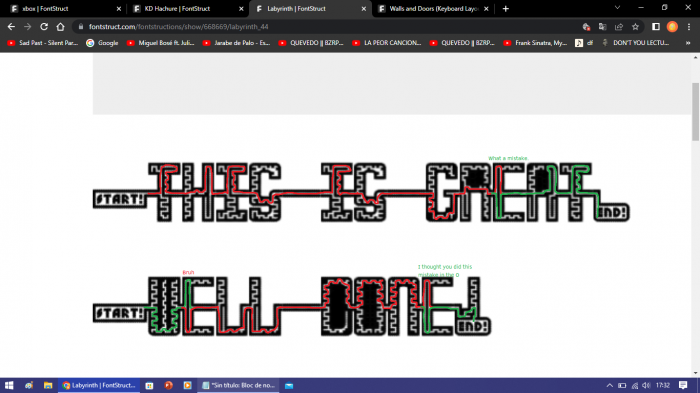
• Go from "START!" to "END!" for each sentence. Capitals have "START!" while . ? and ! have "END!". If a sentence doesn't start with a letter, type a grave (`) before it. DO NOT PUT SPACES BETWEEN SENTENCES! Now you can make mazes out of sentences! :)
Very interesting.
e can be solved by two ways